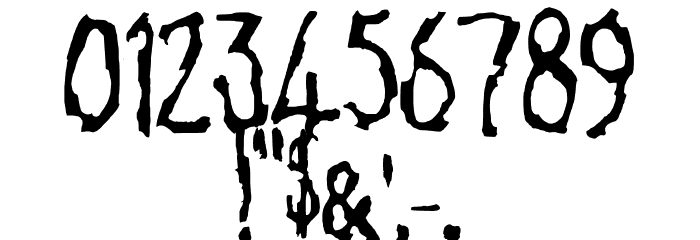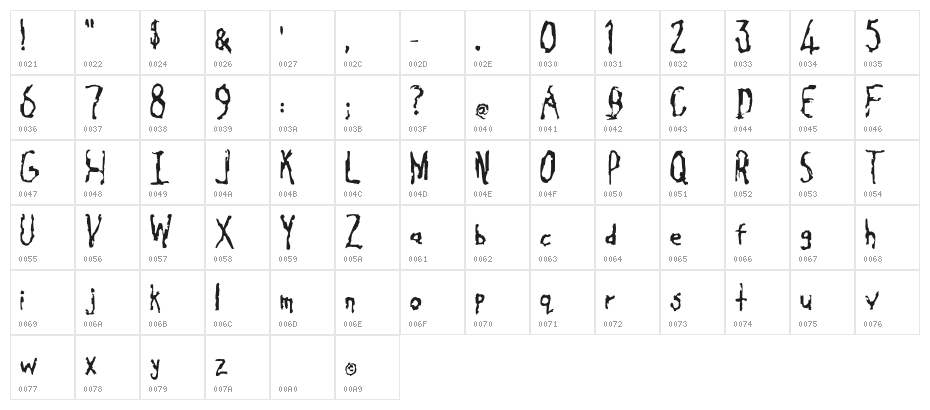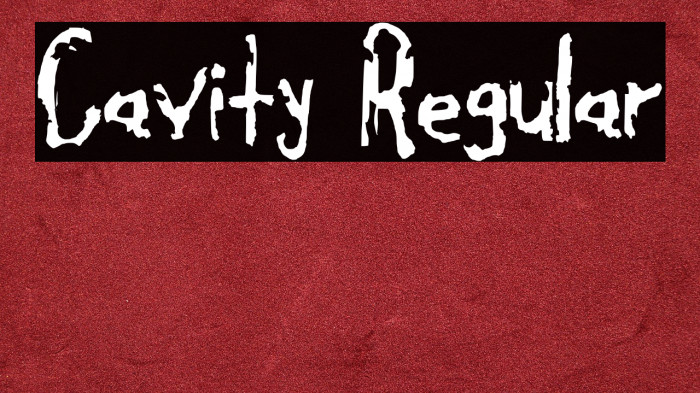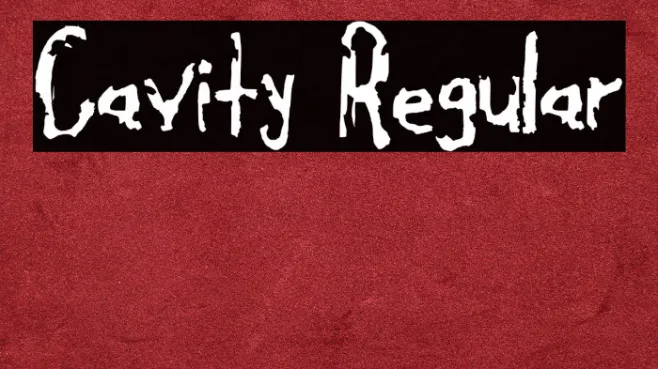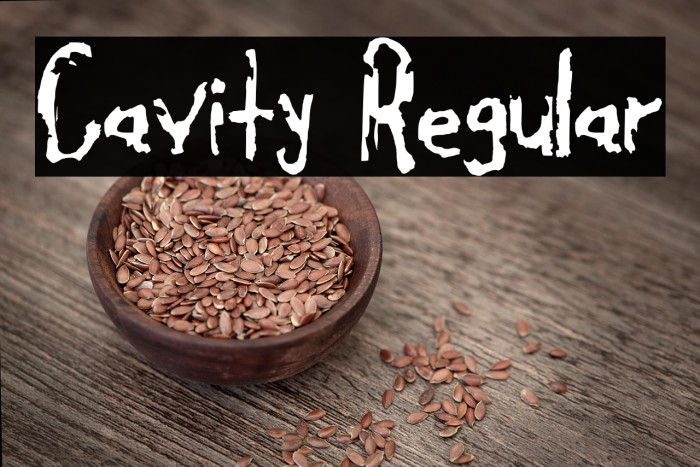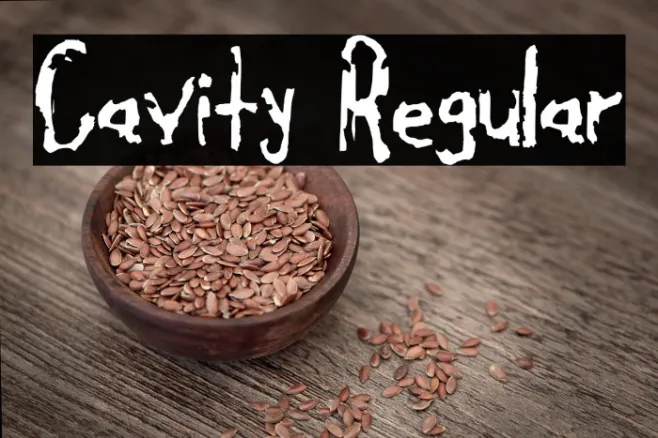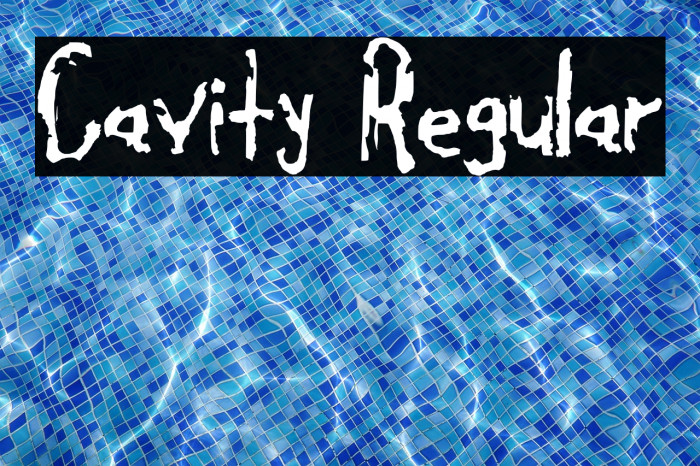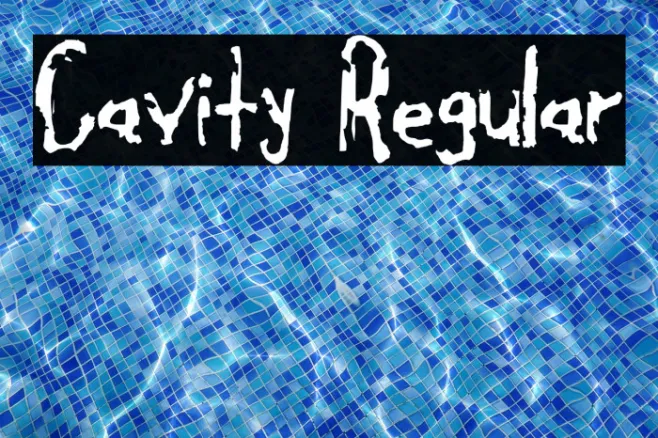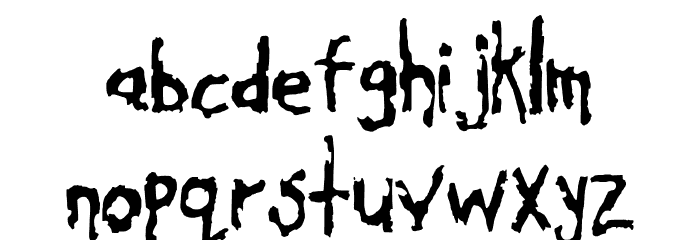
Cavity Regular Font
Cavity Regular Description
This font features a rugged and distressed appearance, with each character appearing as if it has been eroded or carved out. The edges are irregular and jagged, giving it a raw and organic feel. The uppercase and lowercase letters maintain a consistent style, with varying thicknesses that add to the chaotic yet artistic look. Numbers and special characters follow the same theme, ensuring a cohesive design throughout. This font is ideal for projects that require a bold statement or an edgy, unconventional aesthetic.
| Proposed Projects | Ideal for horror-themed designs, album covers, posters, and any project needing an edgy, artistic touch. |